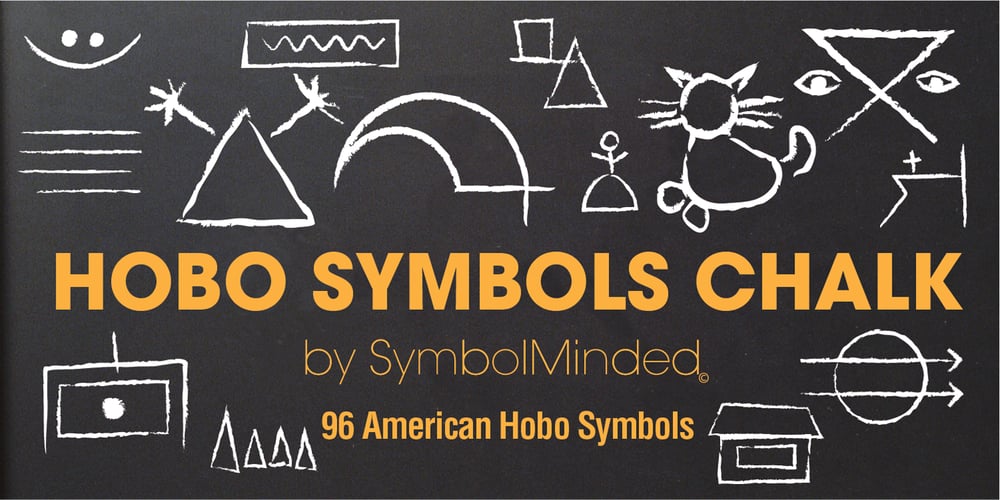
Hobo Symbols Chaulk Font Family was designed by Marie Flaherty and published by SymbolMinded. Hobo Symbols Chaulk contains 1 styles and family package options. During the period of the Great American Depression, “hobos” created a system of symbols to communicate and assist fellow travelers. These symbols would mark a home, farm, fence or other structure to indicate what to expect in the area. They would tip off travelers on how to find food, stay safe and what to avoid and more. In some areas of the USA, these symbols are still visible and have also become part of the American popular culture. These 96 symbols are accompanied by a pdf describing what the symbol was used to indicate. The meanings and symbols are by no means the complete list and there may be additional or alternative meanings. These are for casual use and not historical or anthropologically completely accurate.